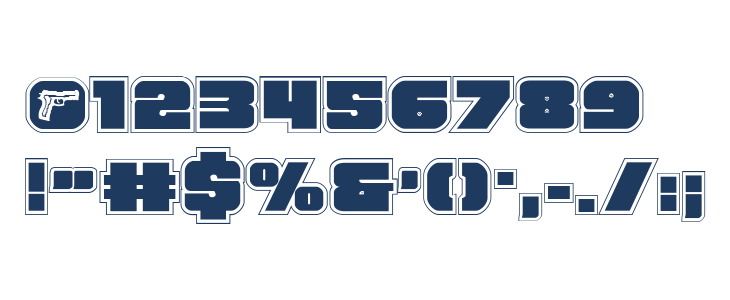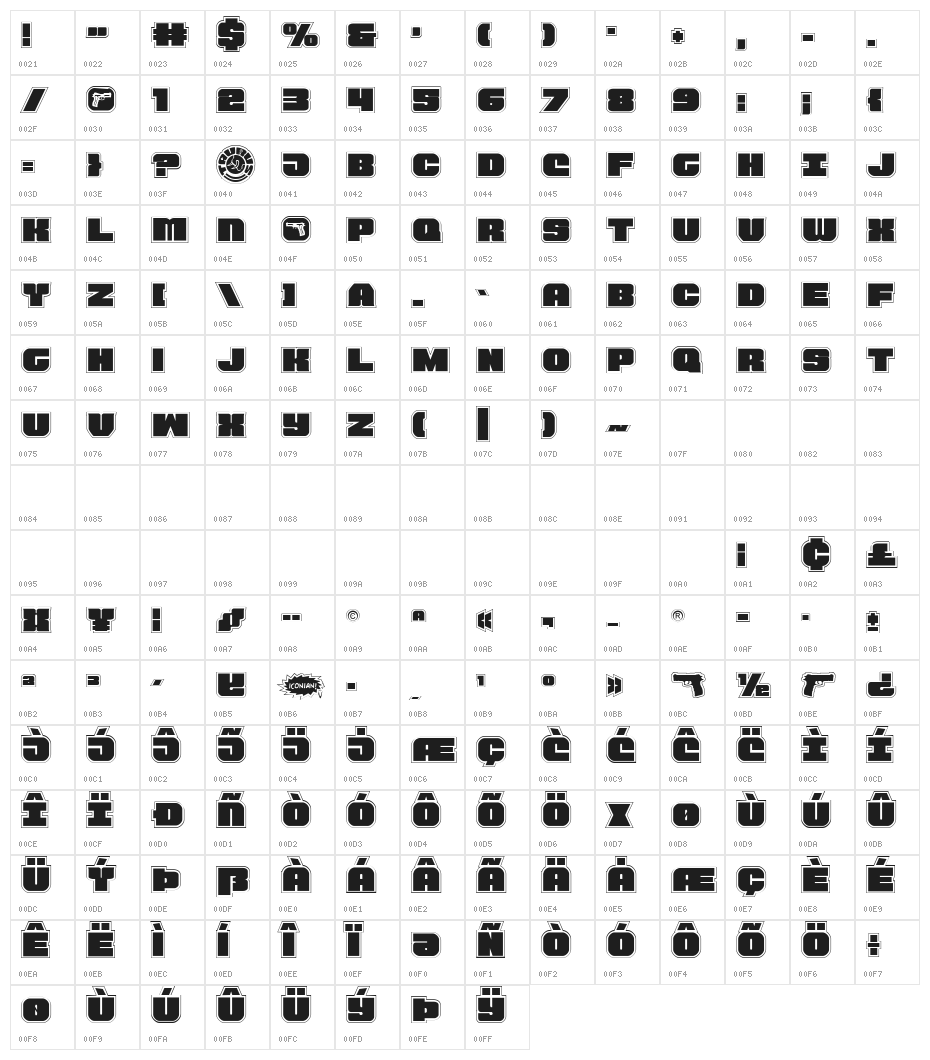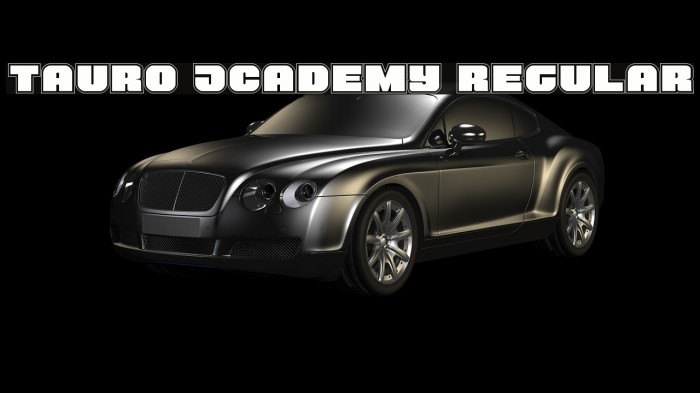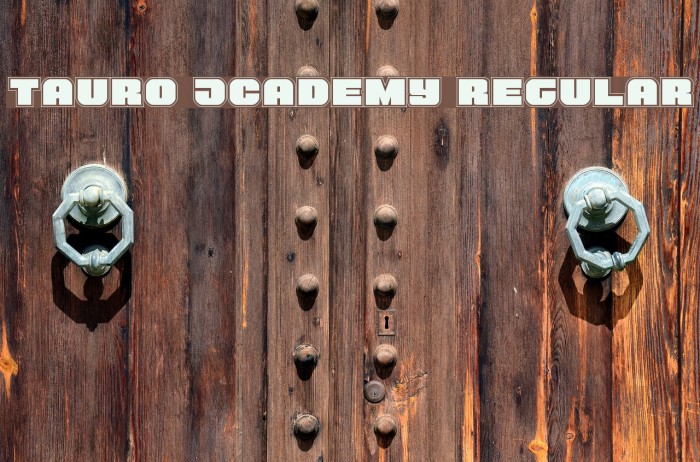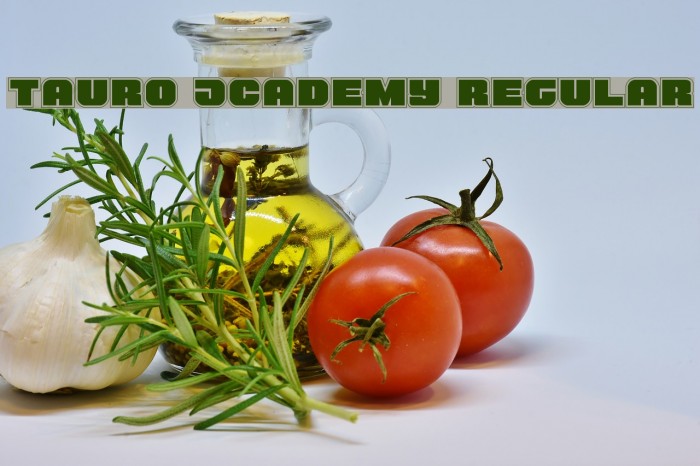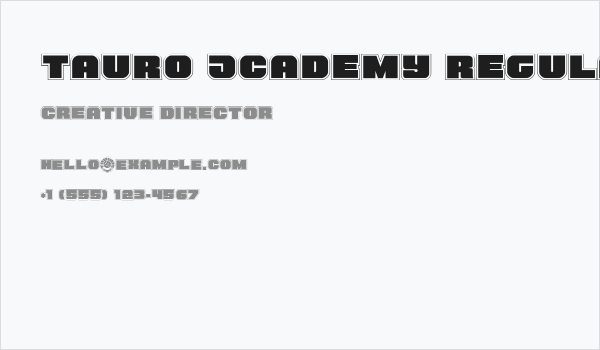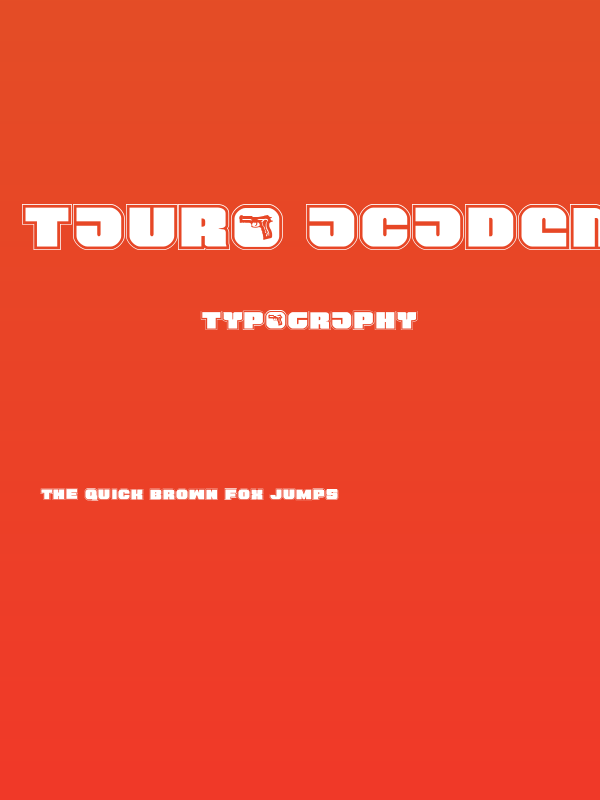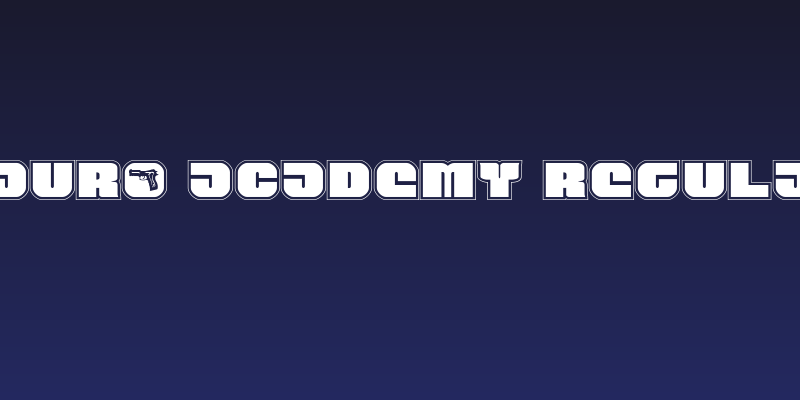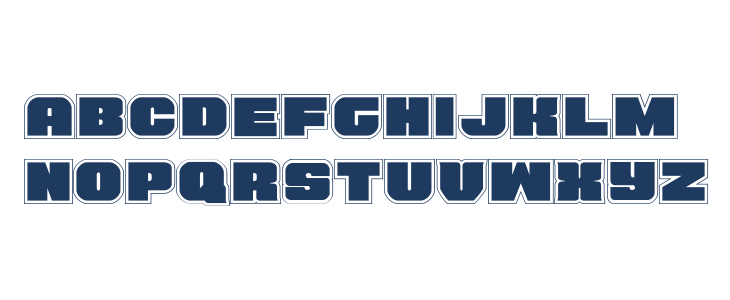
Tauro Academy Regular Font
Tauro Academy Regular Description
This font features a bold, blocky design with a strong presence, characterized by thick, uniform strokes and a distinct outline that gives each character a three-dimensional effect. The uppercase letters are particularly striking, with a robust and sturdy appearance that commands attention. The numerals and special characters maintain this bold style, ensuring consistency across all glyphs. The font's geometric structure and heavy weight make it ideal for impactful designs where readability and emphasis are key.
| Proposed Projects | Ideal for poster headlines, logos, and branding materials that require a strong visual impact. |